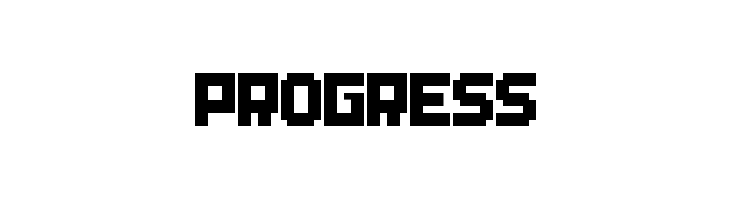
• Eugiene script
A playful and decorative font with whimsical loops and curves.
• Eunila Script Free Personal Use Regular
A flowing, cursive script font with smooth, rounded edges and elegant flourishes.
• Euphoria Script
An elegant and flowing script font with a sophisticated appearance.
• European Teletext
A pixelated, retro-style font inspired by early digital displays.
• European Teletext Nuevo
A pixelated, monospaced font with a retro digital aesthetic.
• EuroScript
A classic handwritten script font with fluid, cursive strokes.
• EuroScript
A classic, flowing handwritten script with elegant, connected letters.
• EuroScript-Bold
A bold, cursive font with a lively, handwritten style.
• EuroScript-Bold
A bold, cursive script font with a fluid, handwritten style.
• Evadare Demo